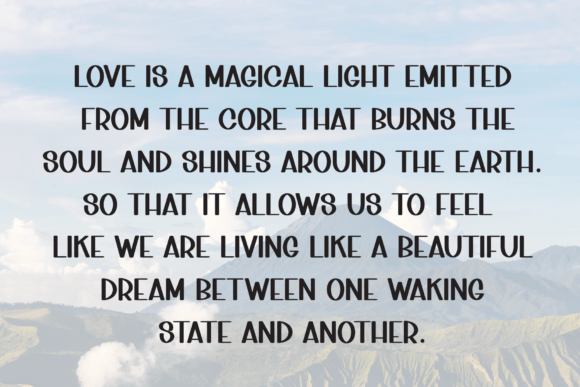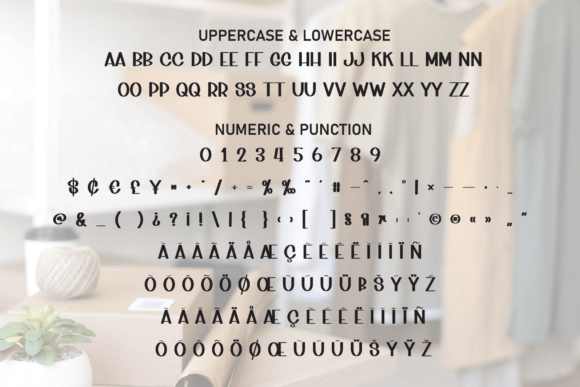
Introduction to Home Store Font
As a designer, there’s nothing quite like the thrill of discovering a new font that perfectly captures the essence of your creative project. For me, that moment came when I stumbled upon the Home Store Font – a clean, approachable sans-serif font that immediately felt like a design best friend.
With its transparent background and simple, yet effective design, the Home Store Font has become an invaluable resource for my projects. Whether I’m working on a digital user interface or a print-based signage, this font ensures my message shines through in a clear and approachable manner. The Home Store Font is available for free download, making it an accessible design resource for creatives of all levels.
Key Features of Home Store Font
- High-quality design: Home Store Font is a premium font that offers a unique and stylish look for your creative projects.
- Unique characteristics: This font features a modern and clean design, with unique characteristics that set it apart from other fonts in its category.
- Perfect for creative projects: Home Store Font is ideal for use in brochures, flyers, business cards, and other marketing materials that require a professional and stylish look.
Honest Review: Home Store Font
I recently had the chance to try out the Home Store Font, and I have to say, it’s been a great addition to my design resource collection. The font is a free download, which is always a bonus, and it’s available for both personal and commercial use.
The font itself is a high-quality, modern sans-serif design that works perfectly for a wide range of creative projects. I particularly love the transparent background option, which makes it super easy to overlay text on top of images or other design elements.
Here are some things that work well with the Home Store Font:
- ✨ Versatility: it’s suitable for both web and print design projects
- ✨ Customization options: the transparent background is a huge plus
- ✨ High quality: the font is crisp and clear, even at small sizes
As with any design resource, there are some limitations to keep in mind:
- ⚠️ Limited character set: it’s not ideal for projects that require a lot of special characters or languages
- ⚠️ Not ideal for very small sizes: while the font is high quality, it can start to lose its crispness at very small sizes
Overall, I’m really impressed with the Home Store Font. It’s a great addition to any design collection, and I’d definitely recommend it to other designers looking for a high-quality, modern sans-serif font.
Getting the Most Out of Home Store Font
To get the most out of Home Store Font, be sure to use it with a transparent background to create a seamless design experience. You can also experiment with different font sizes and colors to add visual interest to your designs.
Home Store Font is perfect for creating high-quality designs for your home store, including product labels, packaging, and marketing materials. It’s also great for personal projects, such as creating invitations and greeting cards.